Stencil fonts are a powerful choice for designers who want to add a bold, industrial, or military-inspired style to their work. They are widely used in branding, posters, packaging, apparel, signage, and modern digital projects because of their distinctive cutout look that instantly grabs attention.
👉 Inside this list, you’ll find:
Bold stencil fonts like Black Ops One – perfect for impactful headlines.
Thin stencil fonts such as Stela UT – ideal for elegant modern layouts.
Minimal stencil typefaces like College – clean and versatile.
Decorative stencil styles such as Belladona Stencil – for unique artistic designs.
Whether you need a free stencil font for a quick creative project or a premium option for professional branding, this collection offers styles that range from rugged and strong to sleek and decorative.
With these fonts, you can easily create designs that look modern, structured, and eye-catching, while maintaining readability.
Free Stencil Fonts
1. Capture It
Capture This is a stencil style font, perfect for when you need to add a blurred rough look to displayed text. The font is upper case only, some of its lowercase letters are a variation of uppercase letters with their different levels of grunge or different strokes. Created by Magique Fonts, you can download this free font in TTF format.
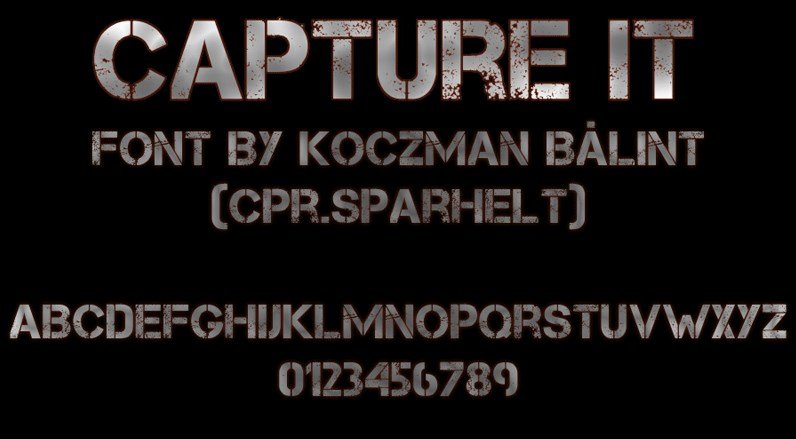
2. Flare
Flare is an elegant sans serif font that is great for logos and headlines, for displaying posters, book covers, packaging, etc. D. No strokes, balloon at its ends are the features that make Flare unique. This free stencil font by Mike Hill is available to download in OTF format.
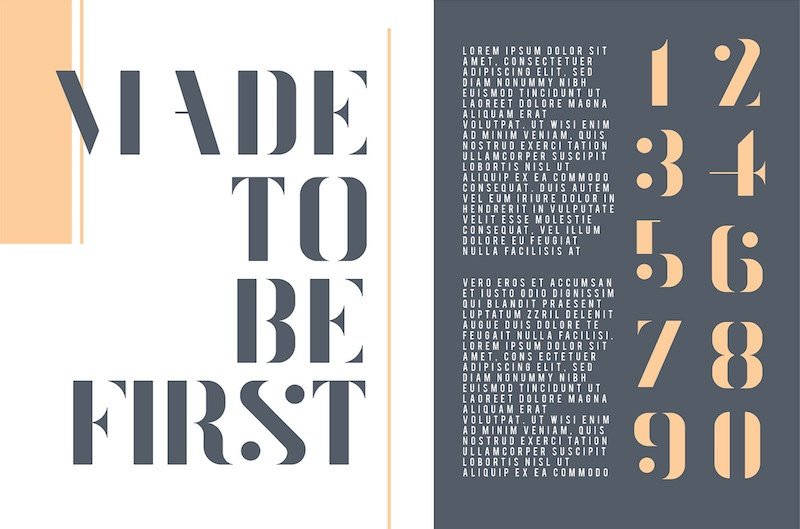
3. Zefani Stencil
Zefani by Andrew Herndon is a family of Zefani Stencil and Zefani Sans fonts designed to work harmoniously in elegant and luxurious applications. The free version with a personal use license includes Zefani Stencil, a minimalist and modern Didone font with bright characters and bold lines. Available for download in OTF format.
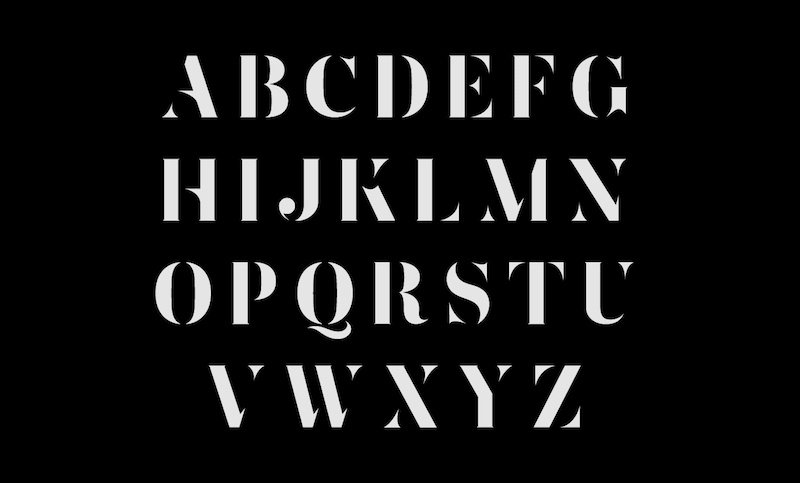
4. Stela UT
Based on geometric shapes, Stela UT is a stencil display font with ultra-fine strokes. Created by graphic design studio Wete, the font has many stylistic alternates and ligatures, its full version includes regular and layered versions with over 600 characters. The regular weight is available as a free download in OTF format and is free for personal use.
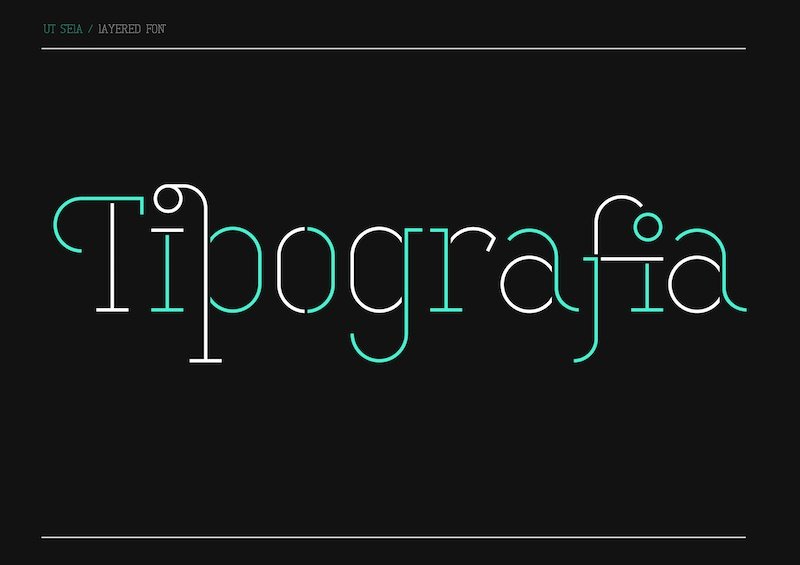
5. Gunplay
The Gunplay font draws inspiration from the poster for the 1972 Steve McQueen / Ali MacGraw movie “Escape”. It is a family of stencil fonts in 4 styles – Regular, Sprayed, Damaged and 3D, Regular (as shown in the image) and styles with 3D shading, which are available for free download in TTF format. Developed by Raymond Larabee of Typodermic Fonts.
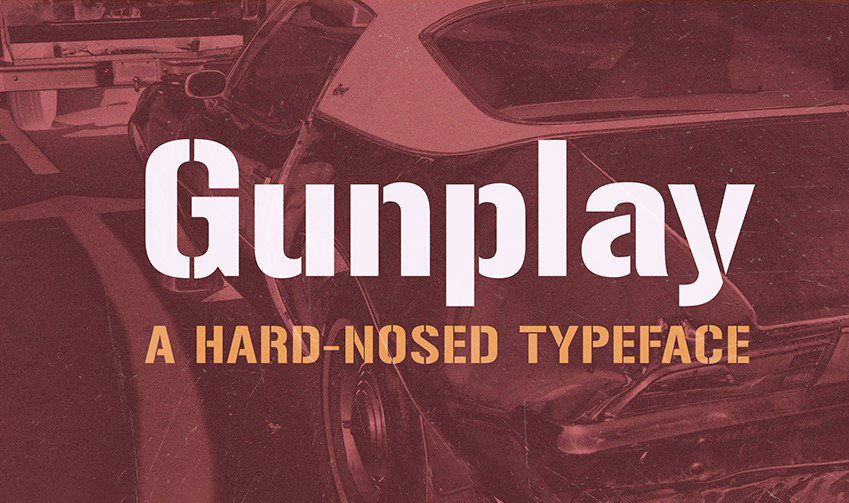
6. Mechsuit
Designer Fredrik Harbin has combined the aesthetics of sci-fi typeface and stencil-style typography in the Mechsuit letterforms. An upper case font in which some lowercase characters such as A, M, V and W are rendered as inverted uppercase letters for better text kerning.
Ideal for adding dynamism to headlines. Available for free download from dafont.com in OTF format and authorized for commercial use.
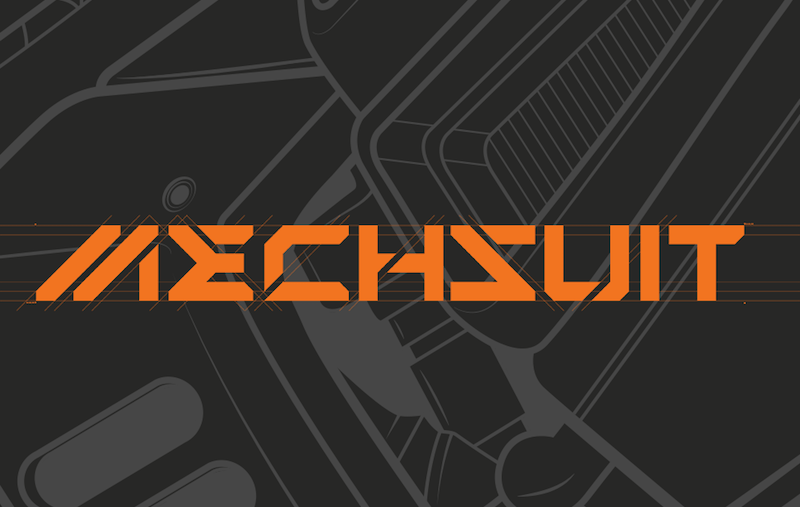
7. Crafto Stencil
Crafto Stencil is a free font designed primarily for graffiti, but it’s also great for headlines and branding projects. The font is designed by Atang Samant and is available for free download in OTF format.
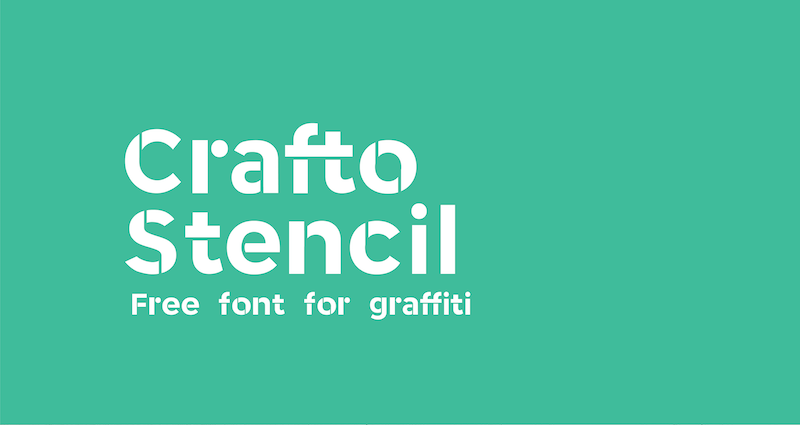
8. Marske
Marske, created by Kash Singh and Sergey Tkachenko, is an uppercase stencil display font designed for use in headlines, posters and logos. It also supports Russian, Ukrainian and Belarusian Cyrillic character sets. Marske is available for free download in TTF and OTF formats.
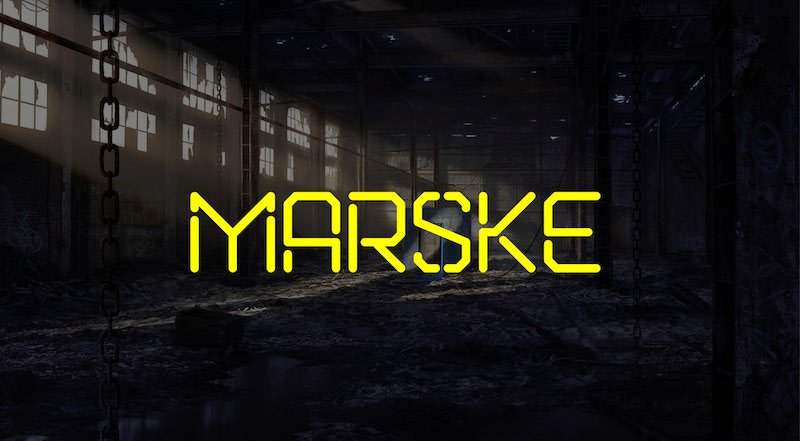
9. Allerta Stencil
Allerta is an open source font family of Allerta, a legible sans serif font and Allerta Stencil, the stenciled version. The font was developed for use in signage, to be easily and quickly read from a distance. The name Allerta itself is derived from the origins of the word alert.
Allerta Stencil is also available on Google Fonts and is currently featured in more than 42000 websites.
Font created by Matt McInerney and available in TTF and OTF formats.
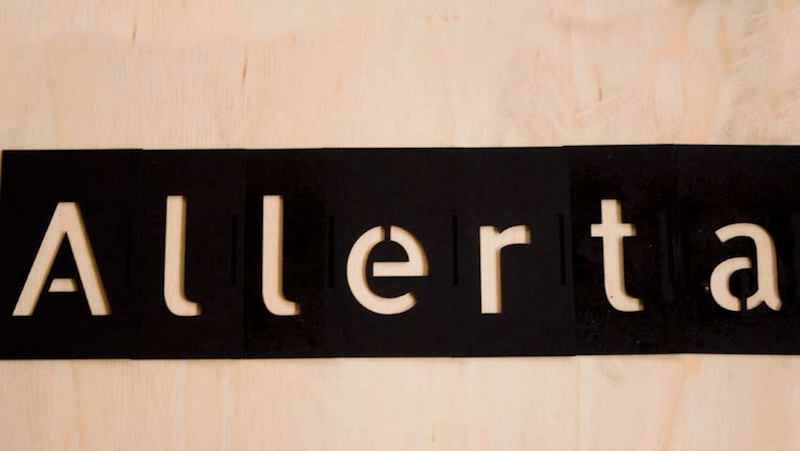
10. Saint George
Saint George by Vedran Vaskovic is an experimental typeface based on the widely available Georgia serif font. Wild and playful, this bold stencil serif font is available for free commercial and personal use. Saint George is a lowercase font, you can see its alphabets in the image above.
Font format: OTF
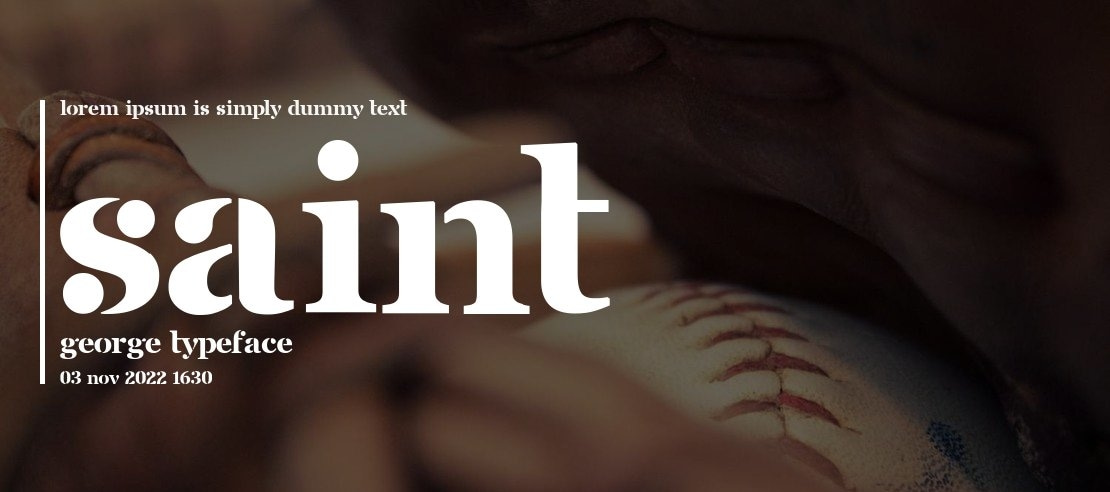
11. Black Ops One
Inspired by military stencil lettering, Black Ops One is a low-contrast, semi-geometric typeface. Designed by James Grieshaber, this heavy and strong font will work best in medium to large sizes.
It is also available as a web font on Google Fonts, and Black Ops One is currently featured on over 70,000 websites.
Font format: TTF
12. Belladona Stencil
Belladona Stencil, designed by Tano Veron, has an urban feel, its letterforms showcasing a combination of modern and vintage art nouveau styles. This decorative stencil font is perfect for adding originality and uniqueness to your branding, packaging and album covers.
Free for use in personal projects, available for download in TTF format.
13. Roska
Roska is a stencil typeface with uppercase letters and rounded edges. According to the designer of Uppertype Foundry, the font was designed with the influence of Portuguese winery labeling and the growing trend of stencil fonts used in the branding of restaurants and food-related companies.
Roska is free for use in personal and commercial design work and comes in TTF format.
14. Marsh Stencil
Marsh Stencil is inspired by an old stencil font created by the American company MARSH Stencil Machines during World War II. Its characters have soft rounded corners.
Some letters, such as M, N, A and V, have unique cuts in the strokes that give them a stylish look that can be used when designing single letter logos.
Created by Guilherme Schneider, Marsh is a multilingual font available for free download in OTF format.
15. College
College is an elegant stencil typeface designed by Corentin Rivière. Its letterforms are based on the architecture of the College de France, taking inspiration from the arches and columns of the building, and are characterized by a combination of sharp and soft rounded corners.
The font contains a full set of lowercase and uppercase letters, numerals and basic symbols.
The font format is TTF and includes a license for commercial use.
Premium fonts
In this section, we have collected the best-selling and most versatile stencil fonts on Creative Market. When you purchase, you also get free support and updates for these fonts.
1. Ravensara Stencil
Ravensara is an elegant high-contrast font family available in 9 weights from Thin to Extra Black, the latter providing the highest contrast. According to designer Peter Bushuev, the typeface is inspired by classic old style typefaces such as Didone and Baskerville, but has a modern feel.
Perfect for use in branding, packaging, presentations and short texts.
With your purchase you will receive the font in OTF and WOFF formats.
2. Midfield Stencil
Midfield Stencil is a bold uppercase font from Kreuk Studio. Perfect when you need a font with a masculine, urban and sporty touch. The font comes in six styles: Regular, Rounded and Pressed, all with their respective versions of Oblique.
Font format: OTF
3. Quas Stencil
Quas is a chic font perfect for creating sleek and elegant headlines, magazine covers, luxury and fashion brands and logo designs. It blends well with both typefaces and sans serif fonts. Available with Envato Elements subscription.
4. Brownie Stencil – Slab Serif Stencil Font
Brownie Stencil is a fun stencil style serif font. It comes with all capital letters with two versions: uppercase and lowercase, and will look great on t-shirt designs, branding projects that require a causal look, handmade crafts, invitations and social media posts.
Font files included: OTF, TTF, WOFF. This font is also available through Envato Elements subscription.
5. Maritime Champion Stencil
Created by Kyle Wayne Benson, Maritime Champion features letterforms with wavy curves and is ideal for designs related to the sea and bodies of water. It is available in 4 weights – Light, Regular, Medium and Bold and includes many language options and fractional numbers.
Font format: OTF
6. Gora Stencil
Gora Stencil from Russian Fonts is an extended flat serif stencil font available in two thicknesses – Regular and Bold. It is suitable for small amounts of text, logos, illustrations, labels and packaging. It also includes Cyrillic characters as well as ligatures, fractions, numbers, subscript and superscript numbers, arrows and currency symbols.
Font format: TTF
7. Lostamp Script
Lostamp is a vintage style font that combines the elegance of a script font with stencil cutouts in its design. Created by Gleb Guralnik, the font has two styles – rough and crisp outlines. It comes with OpenType features such as alternates, ligatures, and strokes and is available in OTF and TTF formats. EPS vector files for all characters are also included.
8. Maroque Stencil
Maroque Stencil is a geometric font inspired by the shapes and patterns of Moroccan carpets, artwork and architecture. A decorative display font that can be used in artwork and geo-inspired designs.
Designed by Hello Mart, it comes with a full character set including numbers and international characters.
Font format: OTF
9. Autobahn SVG Stencil Font
Autobahn is a bold stencil font with realistic spray paint details thanks to the OpenType-SVG font format. Perfect for creating an urban street style or military style.
The font is designed by Simon Stratford and is available as OTF font files.
10. Callisto Modern Stencil Font
Callisto by Photographers Lounge is a feminine and legible serif stencil font that is perfect for blogging, fashion, art and more. It comes in two versions, Regular and Half (in which the spacing is slightly smaller) and is designed to emphasize your text.